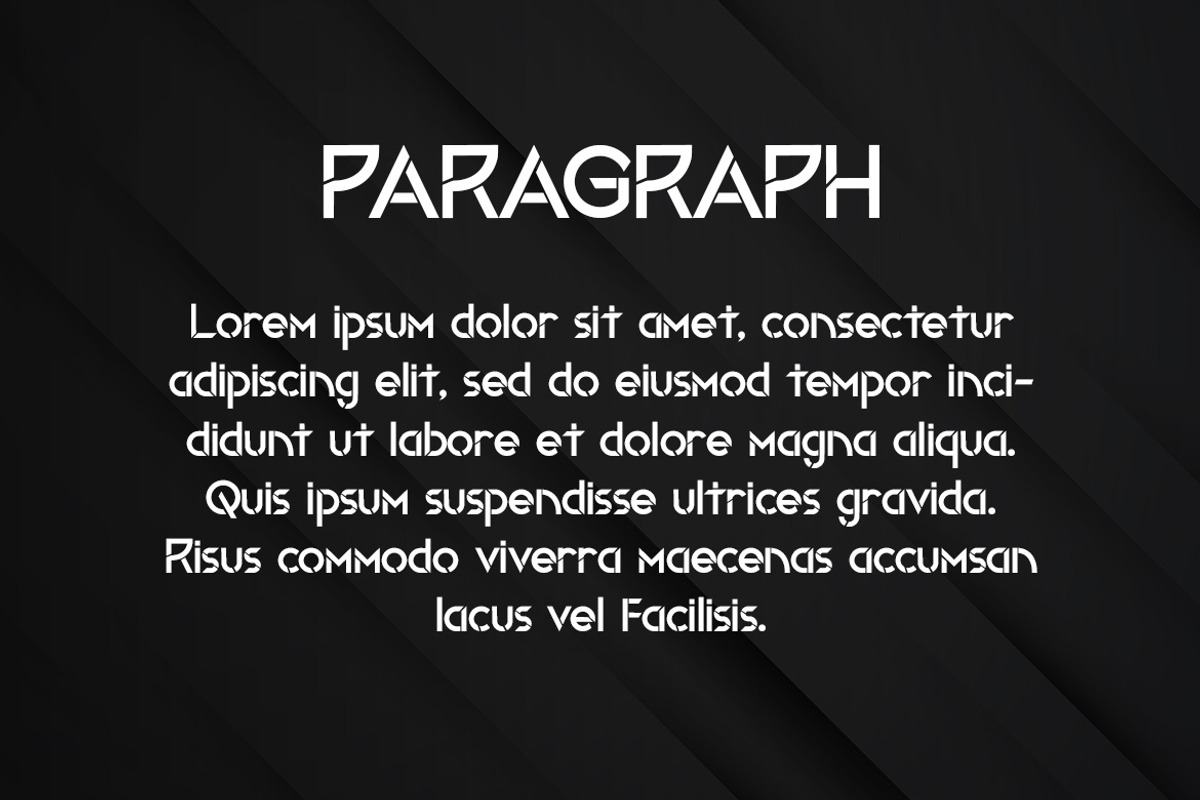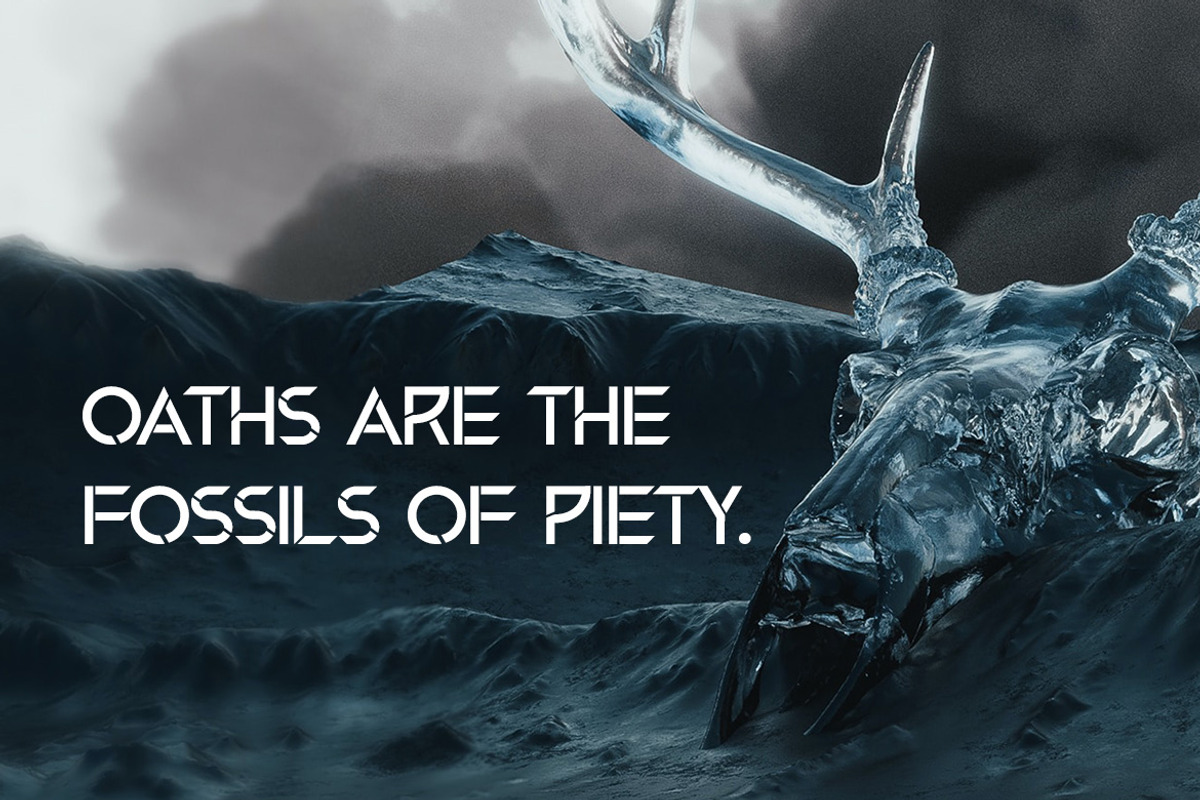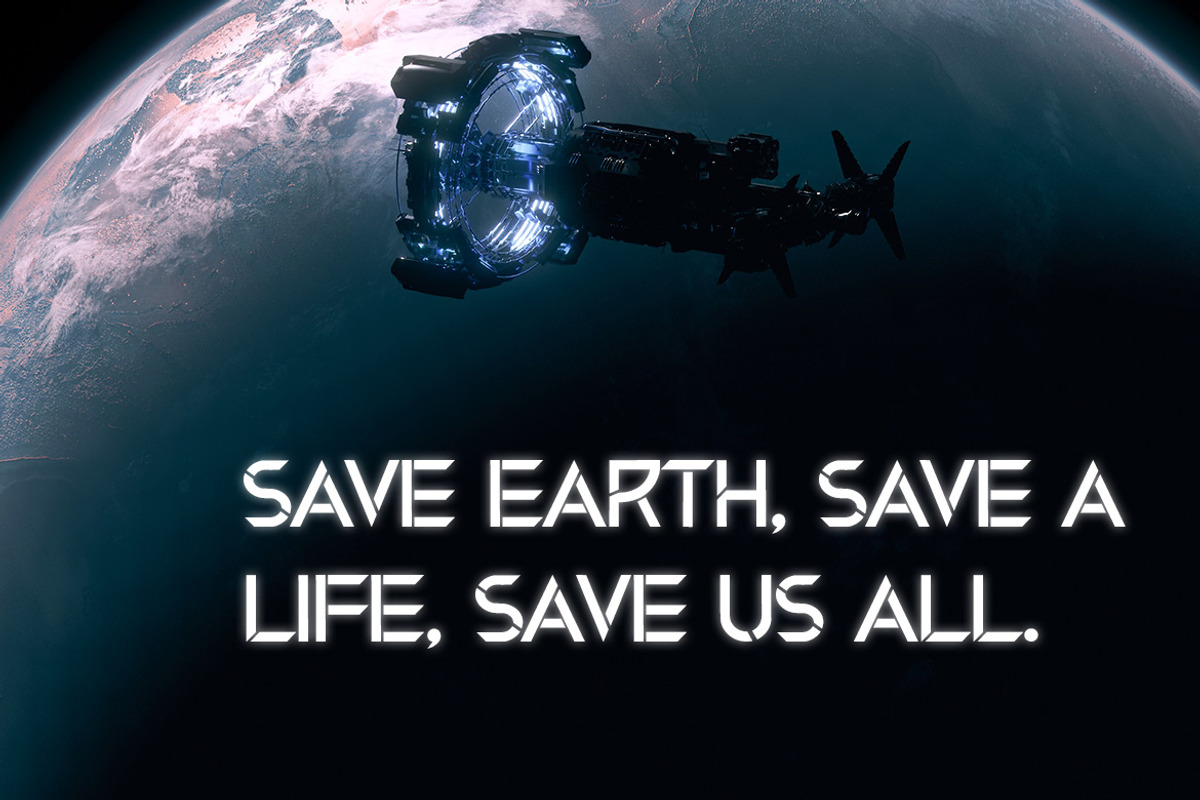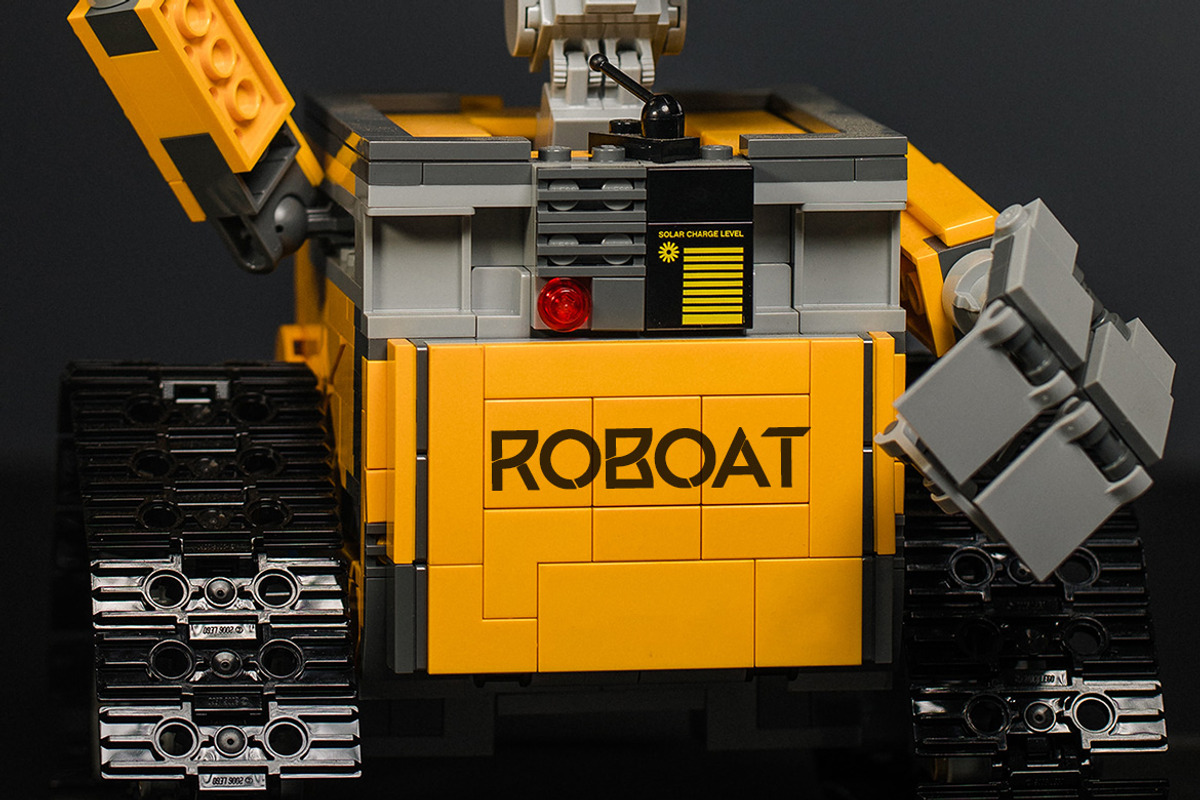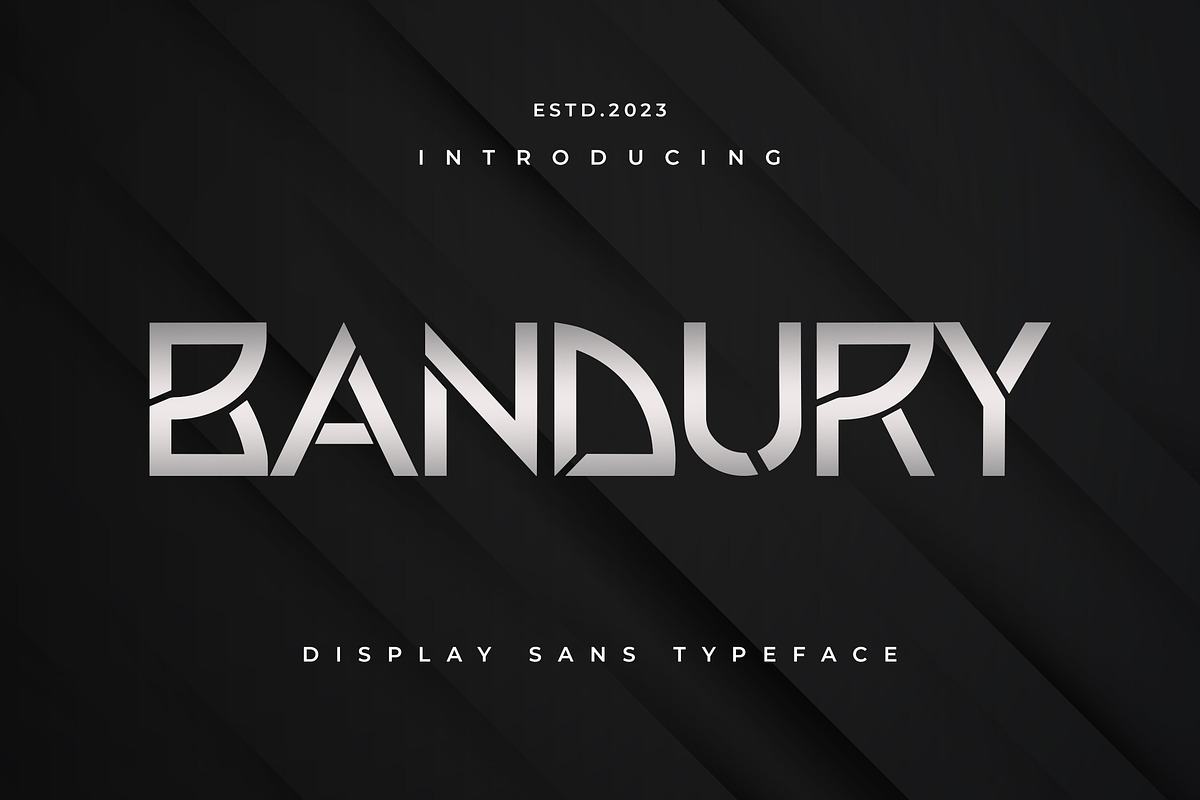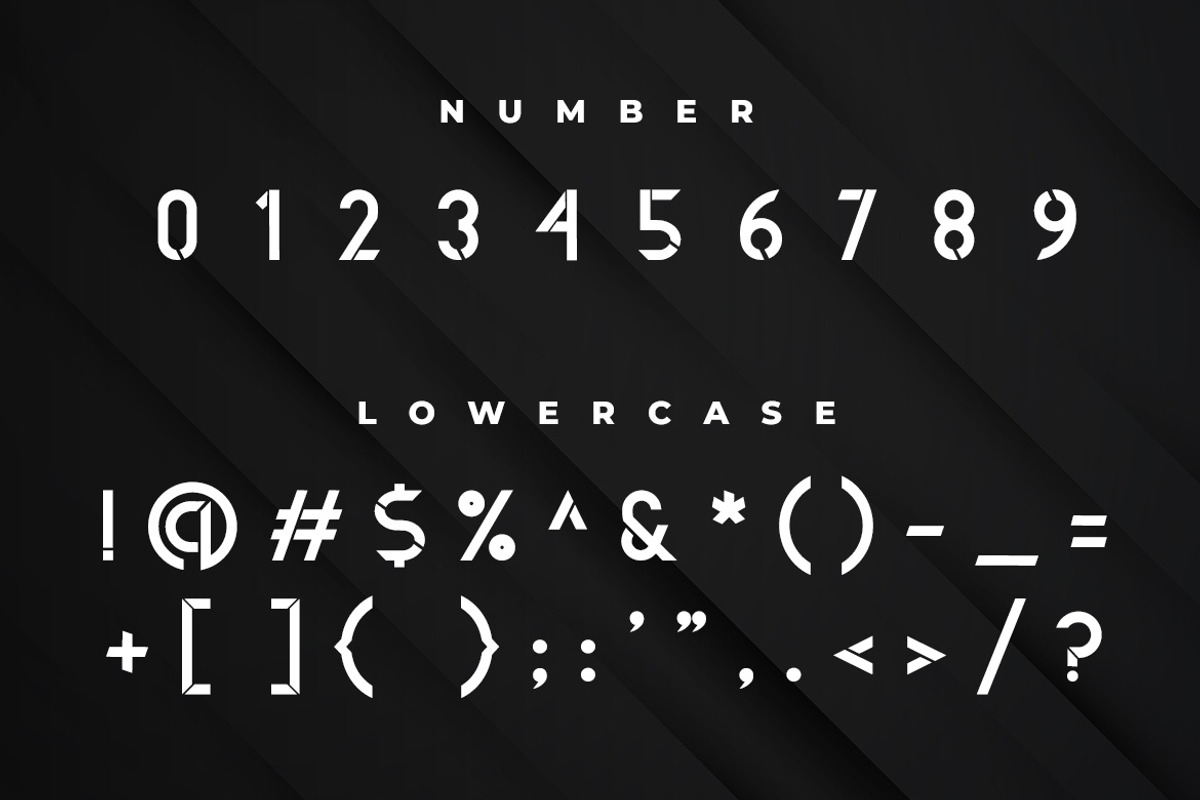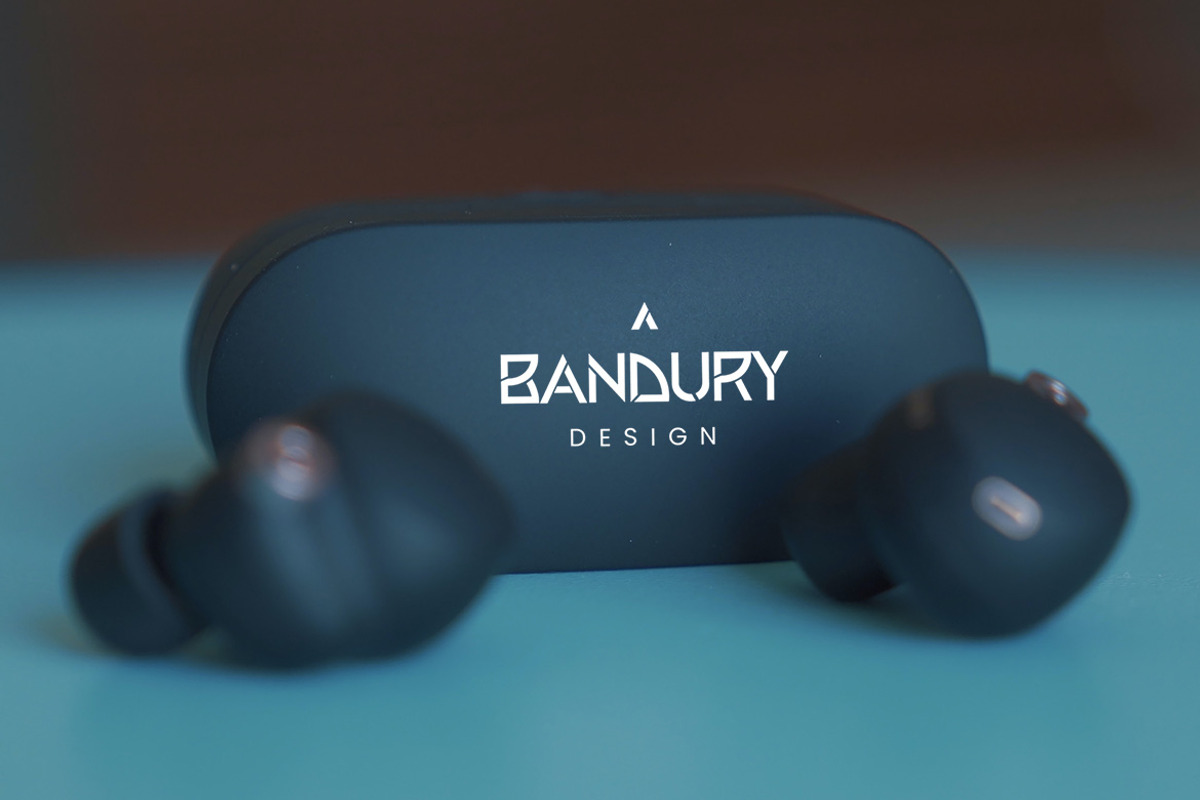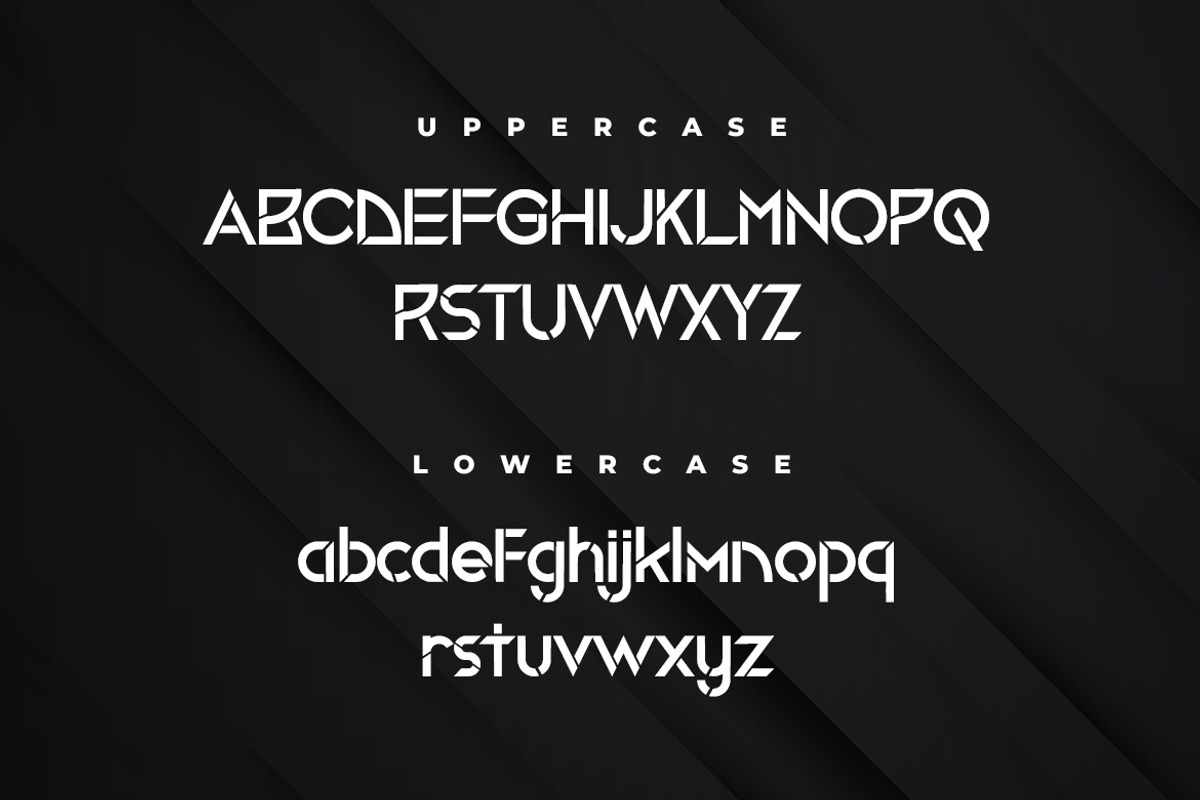
BANDURY - Display Sans Typeface
BANDURY is a unique display typeface perfect for titles, large text, branding, logotypes & graphic design purposes such as posters, pamphlets, and advertisements. This letter font can be a great choice for creating amazing logos, promotional content, and marketing presentations that can bring uniqueness and freshness at its best.